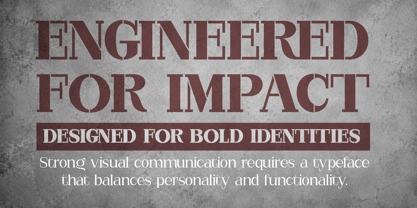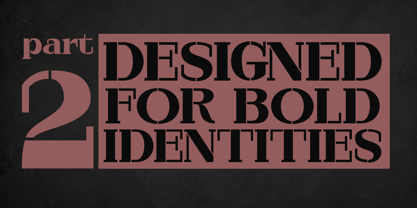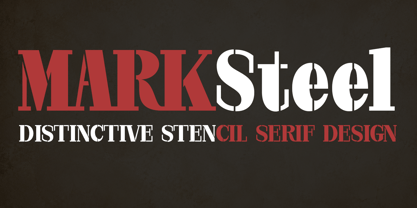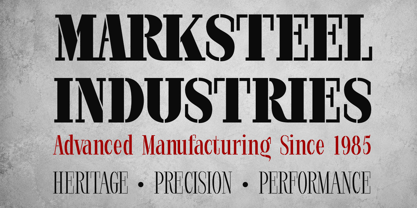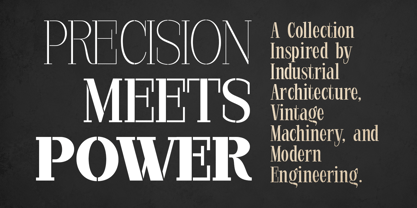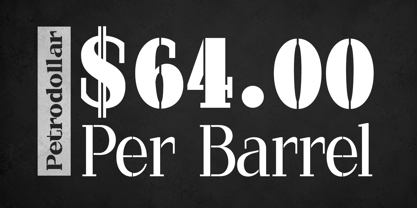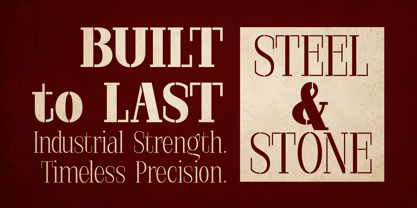
Marksteel
Marksteel Stencil Serif Font Family
Marksteel is a powerful stencil serif typeface that combines industrial strength with timeless sophistication. Designed for designers who need bold visual impact without sacrificing elegance, Marksteel features 45 upright styles distributed across five width categories. The family merges classic serif construction with precise stencil cuts, creating a distinctive appearance suitable for branding, packaging, editorial headlines, posters, signage, military-inspired designs, and premium display applications.
With widths ranging from Condensed to Expanded and weights spanning Thin to Black, Marksteel offers exceptional versatility for building strong typographic hierarchies while maintaining a consistent and recognizable identity.
Marksteel Condensed
Marksteel Condensed is engineered for maximum impact in limited spaces. Its narrow proportions and sharp stencil details create a commanding presence, making it ideal for posters, product labels, packaging, headlines, and industrial branding projects where space efficiency is essential.
Marksteel Semi Condensed
Marksteel Semi Condensed strikes a balance between compactness and readability. The slightly wider structure provides improved legibility while retaining the bold, mechanical character of the stencil design. Perfect for editorial titles, branding systems, advertising campaigns, and modern packaging.
Marksteel Normal
Marksteel Normal represents the core style of the family. Featuring balanced proportions and carefully crafted stencil interruptions, it delivers a confident, versatile appearance suitable for both display and branding applications. Its strong personality makes it an excellent choice for logos, magazines, signage, and promotional materials.
Marksteel Semi Expanded
Marksteel Semi Expanded introduces a broader and more commanding silhouette. The increased width enhances visibility and creates a stronger visual rhythm, making it ideal for luxury branding, premium packaging, large-format advertising, and attention-grabbing headlines.
Marksteel Expanded
Marksteel Expanded delivers the boldest expression of the family. Its wide stance and powerful stencil serif construction create a memorable and authoritative visual presence. Perfect for posters, signage, automotive branding, industrial design projects, sports identities, and large-scale display typography.
Family Features
• 45 Upright Styles
• Five Width Categories
• Thin to Black Weight Range
• Distinctive Stencil Serif Design
• Industrial and Premium Character
• Strong Display Performance
• Consistent Family System